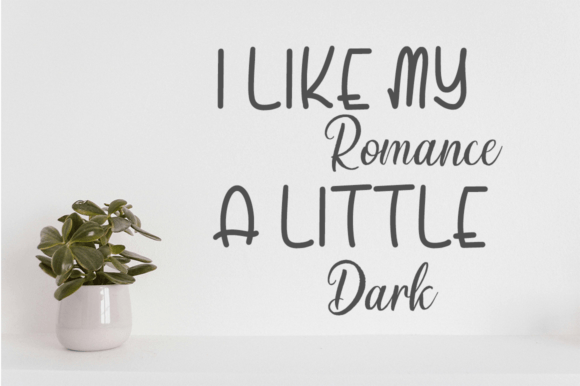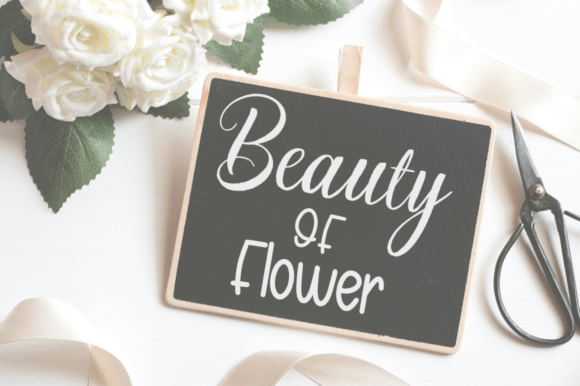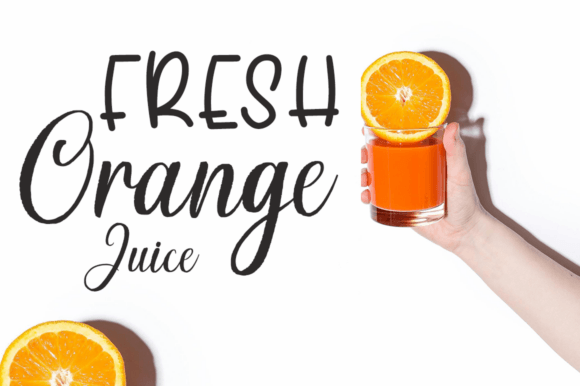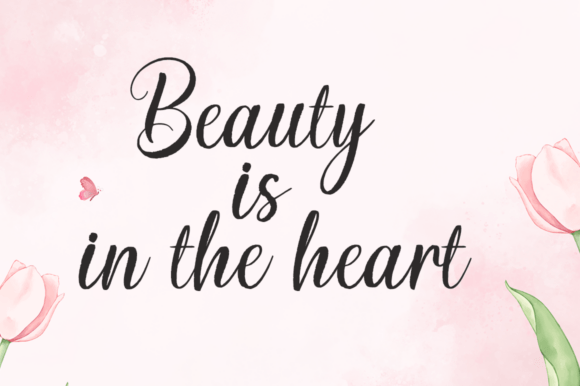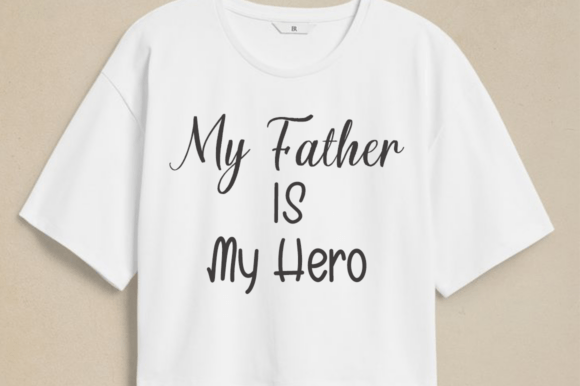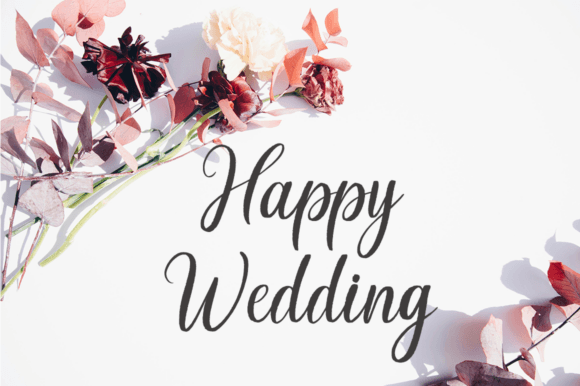
Discover the Magic of Bonsai Font
As a designer, have you ever found yourself stuck in a creative rut, searching for that perfect font to bring your project to life? It’s a moment we’ve all experienced – the blank page staring back at us, the cursor blinking impatiently, and our minds racing for inspiration. But what if I told you there’s a font that can instantly spark your creativity and transport you to a world of vibrant colors and playful charm?
Meet Bonsai Font, a delightful duo that embodies the essence of summer and adds a touch of sophistication to any design. Whether you’re working on a children’s event, educational project, or festive holiday decoration, Bonsai Font is the perfect companion to infuse your creations with an endearing, playful essence.
So, what makes Bonsai Font so valuable for designers? Its multifaceted nature lends itself to a wide range of creations, from sun-drenched summer designs to fashionable t-shirt graphics, making it an instant enhancement to your design aesthetic.
Bonsai Font Key Features
- Unique Hand-Drawn Style: Bonsai Font features a distinctive hand-drawn style with elegant and refined lines, making it perfect for creating visually appealing designs.
- High Resolution: Designed at 300 DPI, ensuring crisp and clear typography at any size, from small text to large headlines.
- Character Count: The font includes a wide range of characters, including Latin, Greek, and Cyrillic alphabets, as well as punctuation and special characters.
- Font Weight and Style Options: The font includes multiple weight and style options, including Light, Regular, Bold, and Italic, providing flexibility for designers to create a wide range of effects.
Bonsai Font Review
Overall, I think Bonsai Font is a solid choice for designers looking for a clean and elegant font family. Here are some things that work well:
- ✨ Versatility: Bonsai Font is highly versatile and suitable for a wide range of projects, from body text to display headings.
- ✨ High-quality glyphs: The font features high-quality glyphs that ensure crisp and clear text rendering.
- ✨ Excellent for digital design: Bonsai Font is optimized for digital design and works seamlessly on various devices and screen sizes.
However, I have to mention some limitations:
- ⚠️ Limited language support: Bonsai Font primarily supports Latin-based languages, which might be a drawback for designers working with non-Latin scripts.
- ⚠️ Not ideal for complex layouts: Due to its clean design, Bonsai Font may not be the best choice for projects requiring complex layouts or intricate typography.
Overall, I’d give Bonsai Font 4 out of 5 stars. While it’s not perfect, its strengths outweigh its weaknesses, making it a great addition to any designer’s font library. With some careful planning and consideration of its limitations, Bonsai Font can elevate your designs to the next level.
Bonsai Font is commonly used for:
- Creating unique headings and titles
- Designing custom typography and graphics
- Adding a touch of elegance to presentations and documents
What is the technical specification of Bonsai Font?